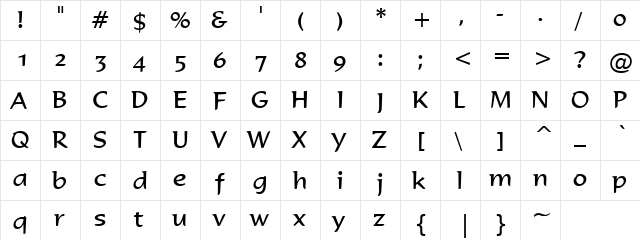
Beemer Regular
Design Context for Beemer Typeface
Beemer offers clean, dependable letterforms without strong stylistic allegiance, making it a practical choice for designers who need flexibility.